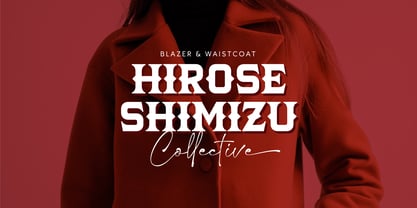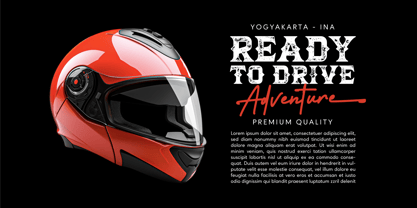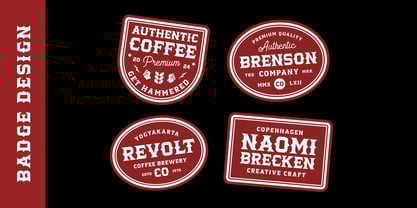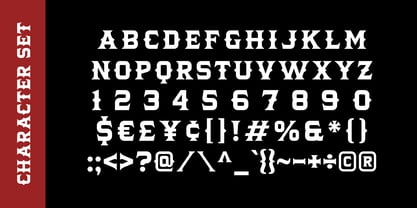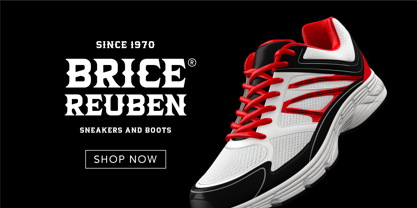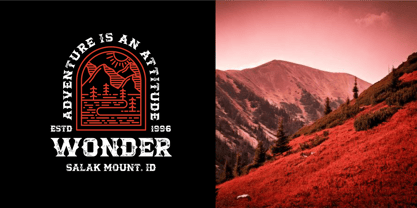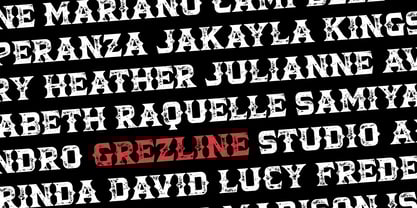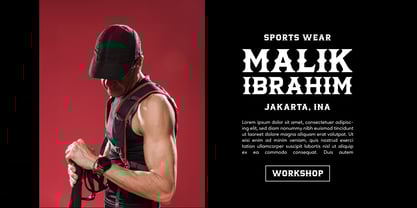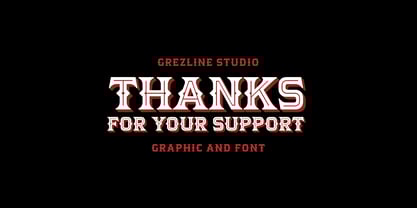
Gabriel Briston
par Grezline Studio
La famille de polices Gabriel Briston a été conçue par Akhmad Reza Fauzi et publiée par Grezline Studio. Gabriel Briston contient 3 styles et options de package familial.
Gabriel Briston is a sporty modern display font. Gabriel Briston font is ideal for logos, posters, packaging, banner, and other creative projects that demand visually aesthetic and distinctive elements.